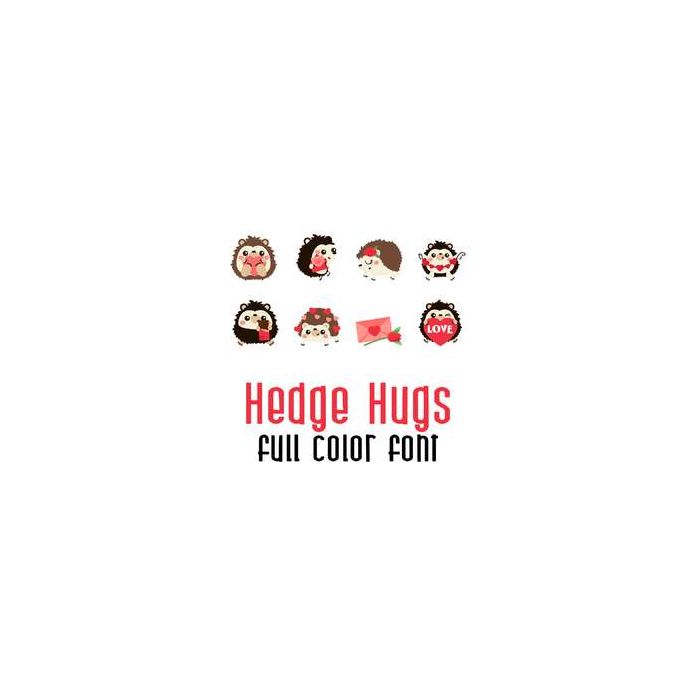
This adorable full color doodlebat font features adorable Hedge Hogs ready for love. Perfect for cards, crafts, gifts, decor, scrap book pages, planner stickers and more!